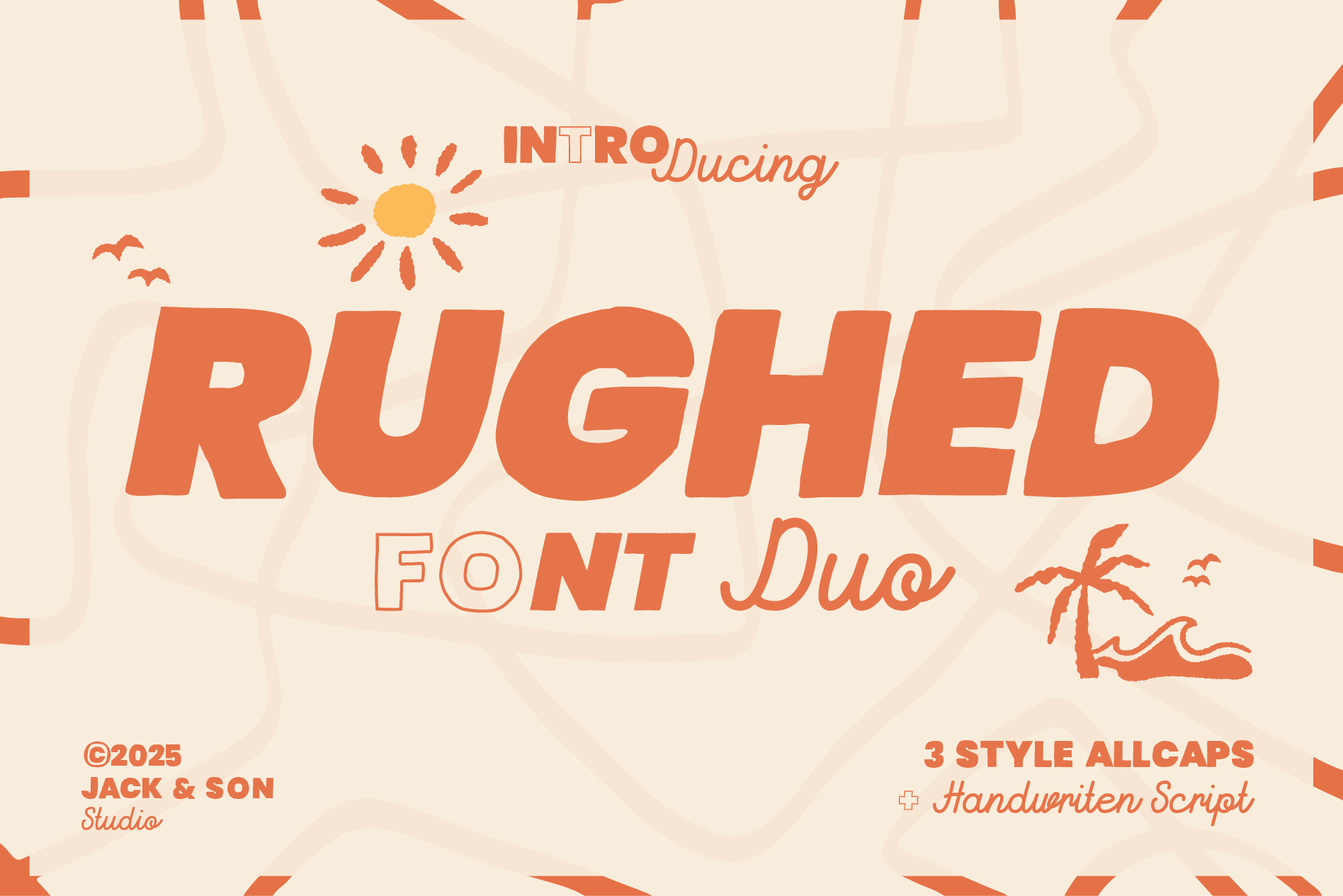
RUGHED: Display Font
Introducing: RUGHED - is A Display condensed Bold Typeface with Vintage Soul Meet RUGHED, a display sans-serif typeface meticulously crafted to bring that authentic vintage feel you've been searching for. Each character boasts a hand-drawn charm, giving your designs a unique, artisanal touch.
RUGHED isn't just one font; it comes with three distinct styles:
· Regular · Italic · Outline · it includes a complementary Handwritten style for added versatility!
This typeface is incredibly versatile, making it perfect for:
· Vintage branding · Logo design · T-shirt graphics · Labels and badges · And so much more!